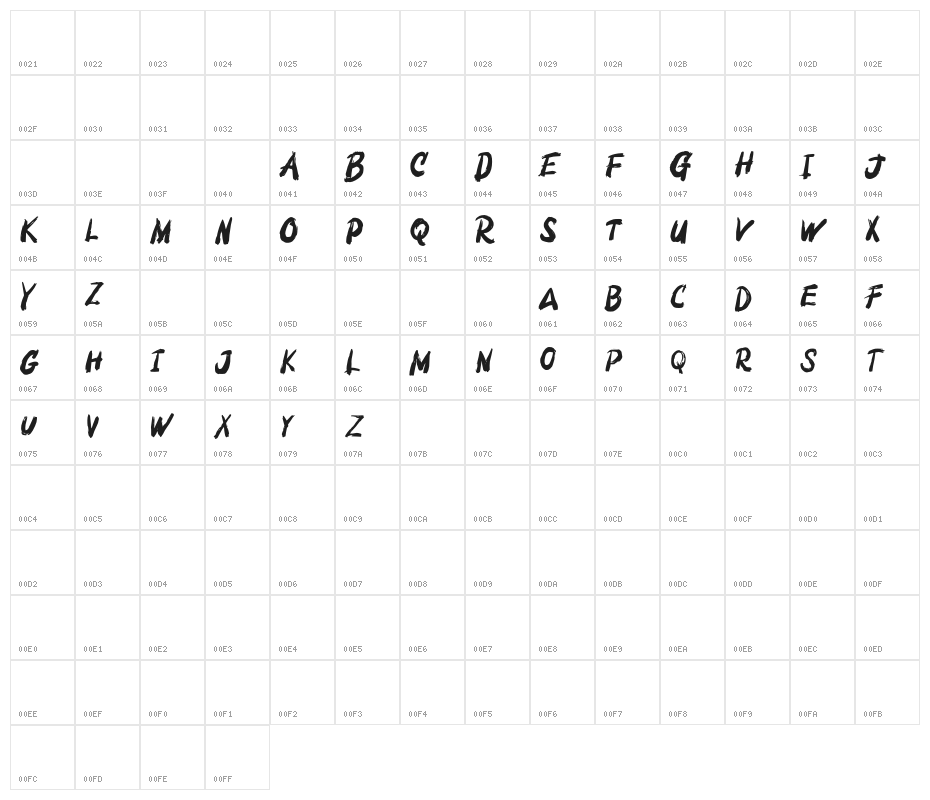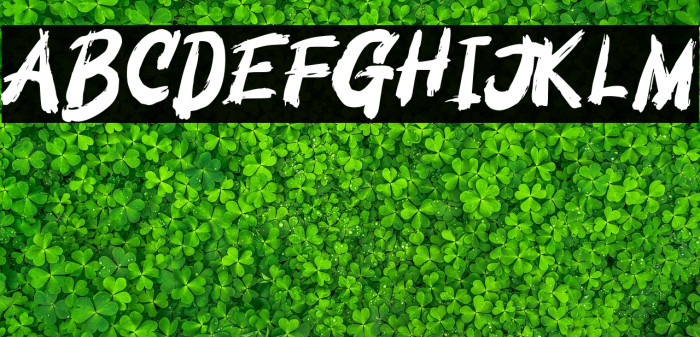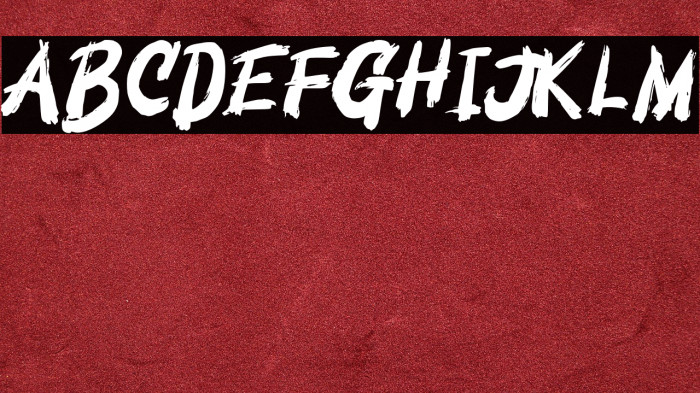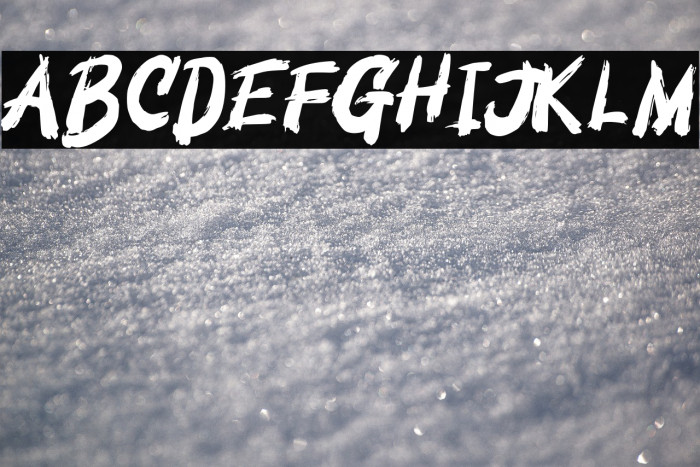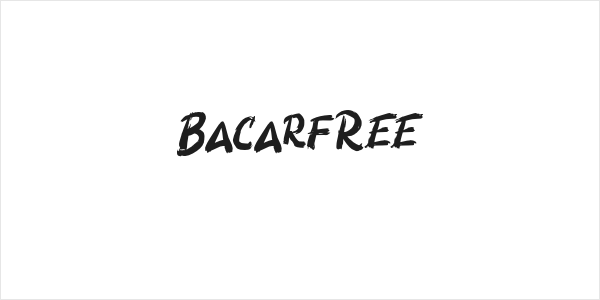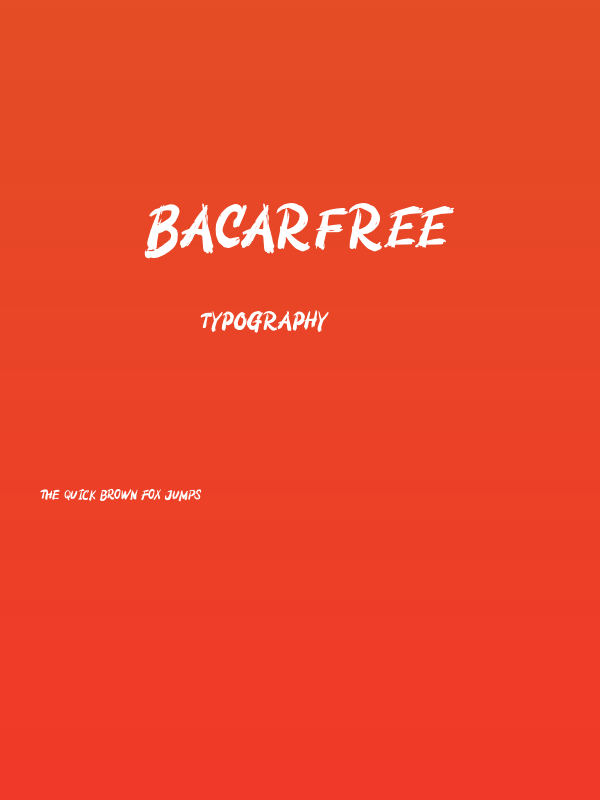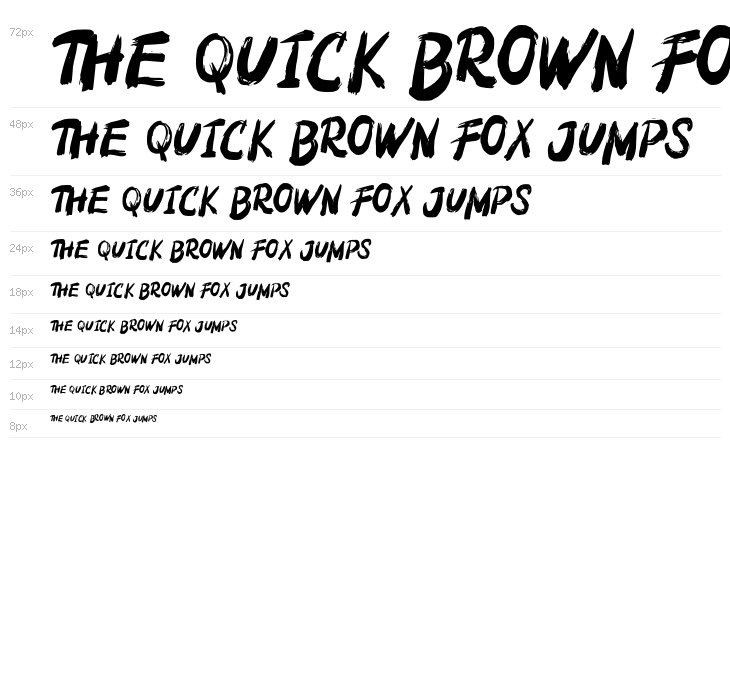
BacarFREE Font
BacarFREE Description
This font features a bold and expressive brush style, characterized by its dynamic and energetic strokes. The letters have a hand-painted appearance, with varying thicknesses that add a sense of movement and fluidity. The uppercase letters are particularly striking, with sharp angles and a slightly aggressive flair. The overall look is both artistic and modern, making it suitable for creative projects that require a strong visual impact. The font's unique style is ideal for capturing attention and conveying a sense of creativity and individuality.
| Proposed Projects | Ideal for posters, branding, album covers, and any project needing a bold artistic touch. |